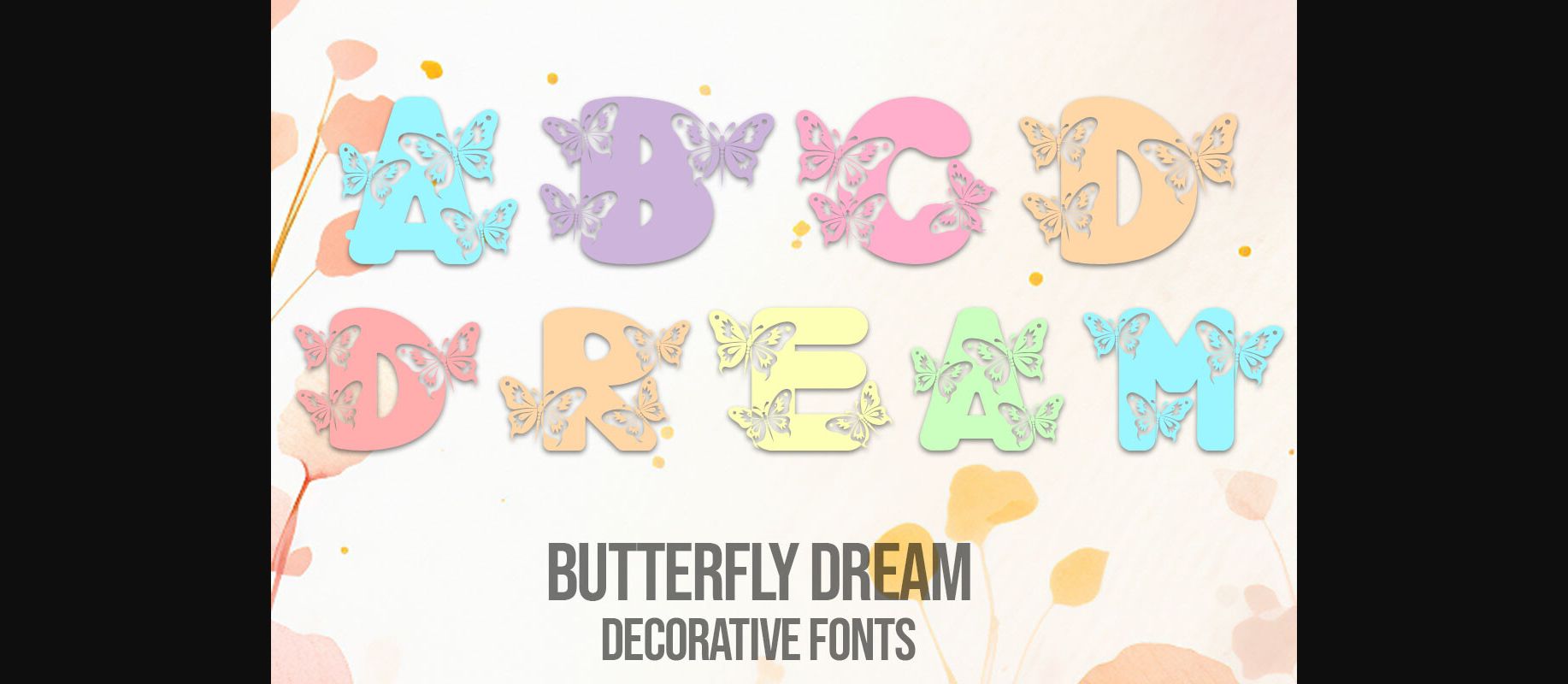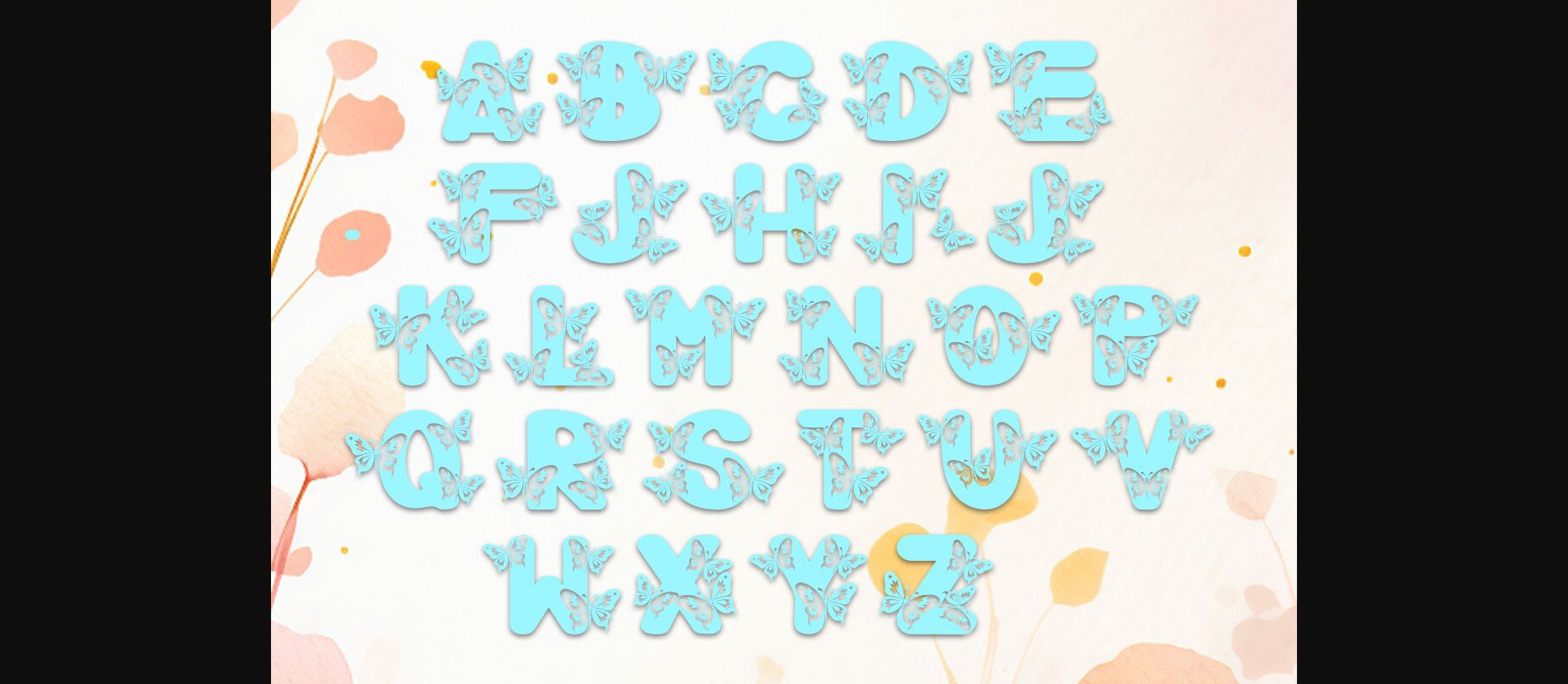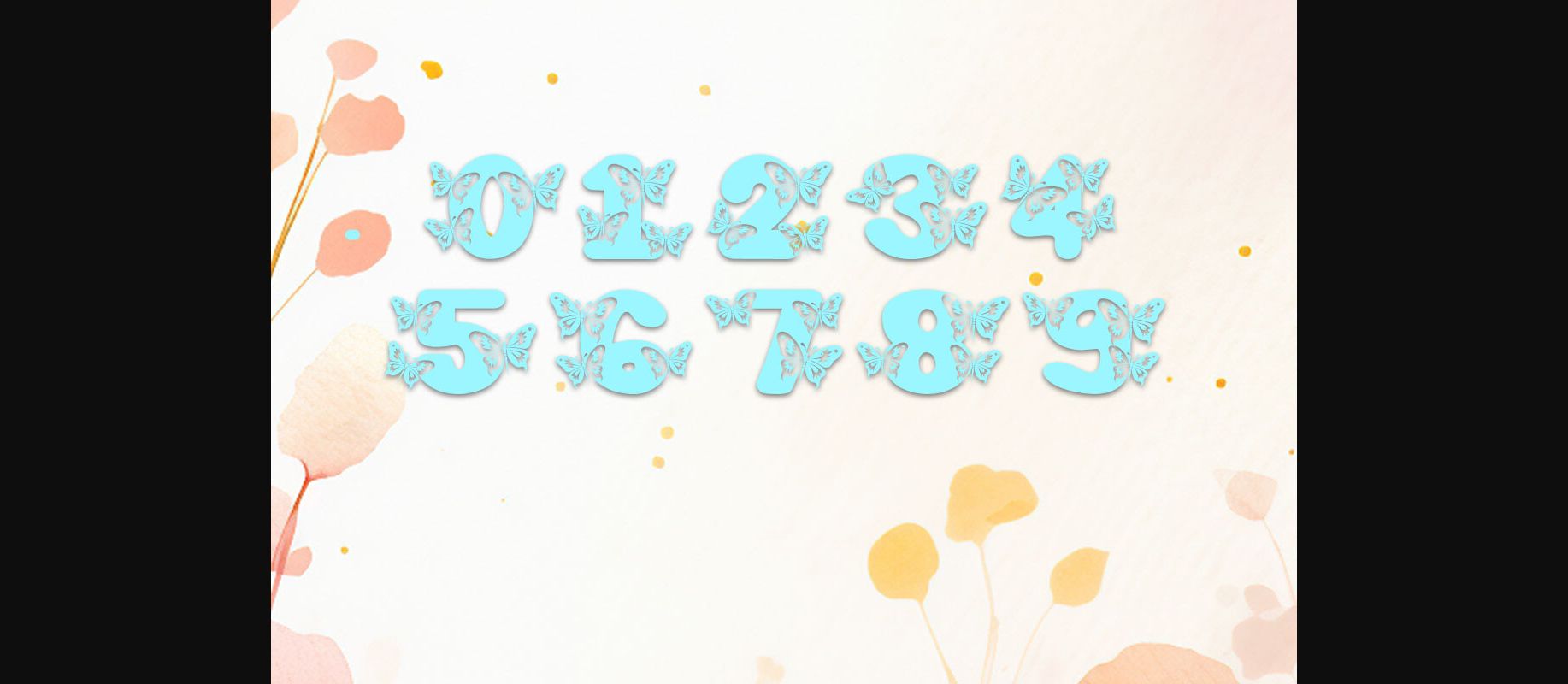
Butterfly Dream Font
About Butterfly Dream Font
Introducing Butterfly Dream Fonts – a captivating collection featuring uppercase letters from A to Z and numbers 0 to 9. This font set beautifully combines intricate lettering with delicate butterfly patterns, adding an enchanting touch to your designs